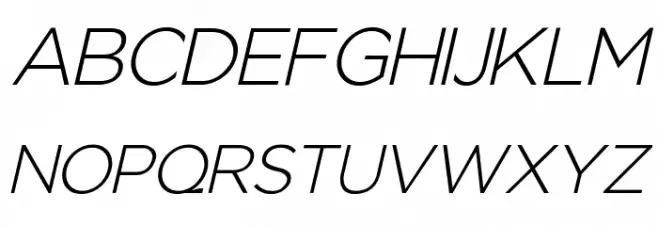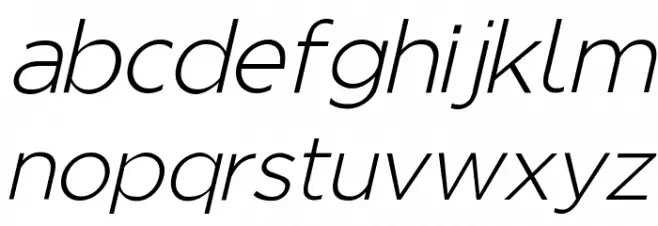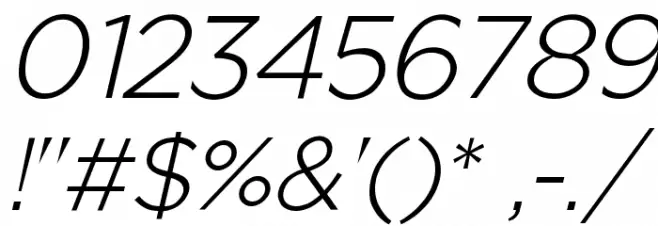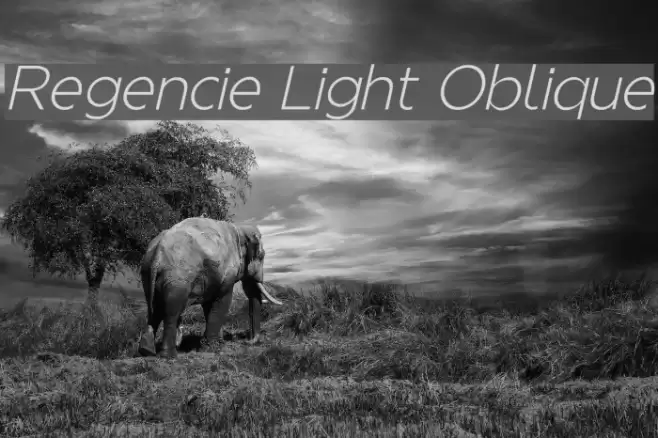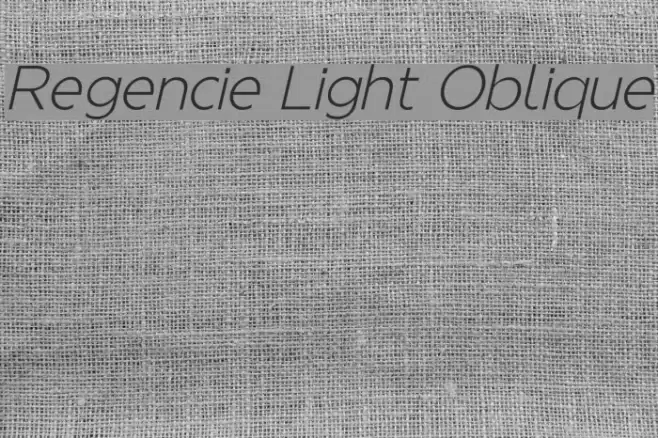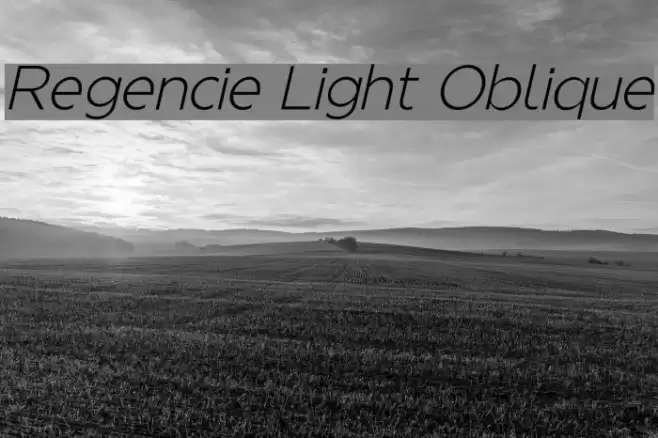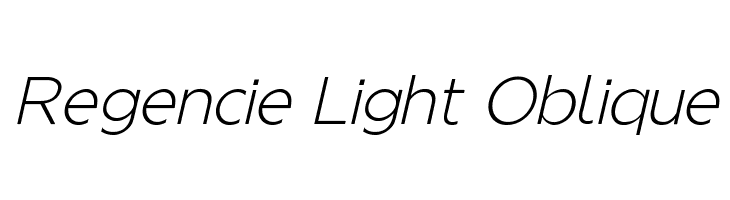
Regencie Light Oblique
This font features a sleek and modern design with a light weight and oblique style. The characters are elegantly slanted, giving a sense of motion and sophistication. The sans-serif structure ensures a clean and uncluttered appearance, making it versatile for various design needs. The font maintains a consistent stroke width, contributing to its minimalist aesthetic. Its character set includes uppercase and lowercase letters, numbers, and a range of special characters, all designed with a uniform and harmonious look. The spacing between characters is normal, ensuring readability while maintaining a stylish appearance.
A sleek, modern, and oblique sans-serif font with a light weight.
- Proposed Projects: Ideal for modern branding, editorial design, fashion magazines, and digital interfaces.
- Weight: Light